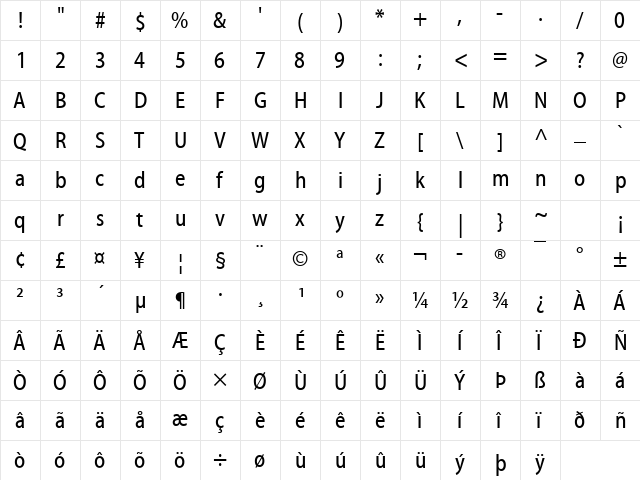
Myriad Condensed Web Regular
| Foundry | Adobe Systems Incorporated |
| Designer | Robert Slimbach and Carol Twombly |
Design Context for Myriad Condensed Web Typeface
Myriad Condensed Web takes a measured approach to typography — its balanced proportions and neutral character make it a reliable workhorse for both digital and print work. The condensed width makes it efficient for tight spaces without sacrificing legibility.